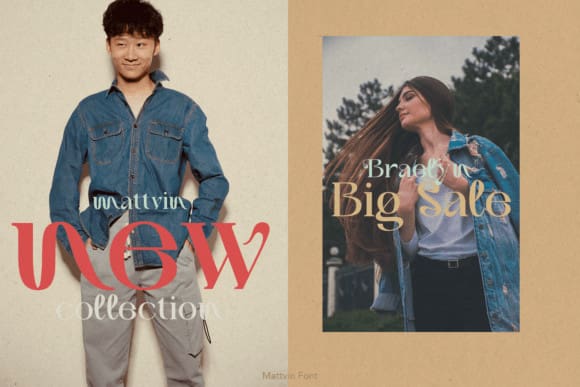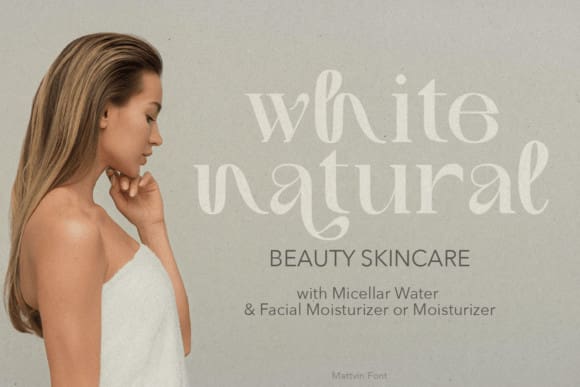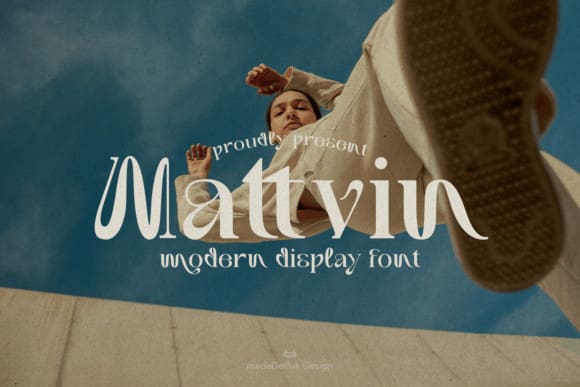
Mattvin Font
Mattvin Font is a stylish and incredibly elegant serif display font. It looks stunning on wedding invitations, thank you cards, quotes, greeting cards, logos, business cards and every other design which needs a handwritten touch.